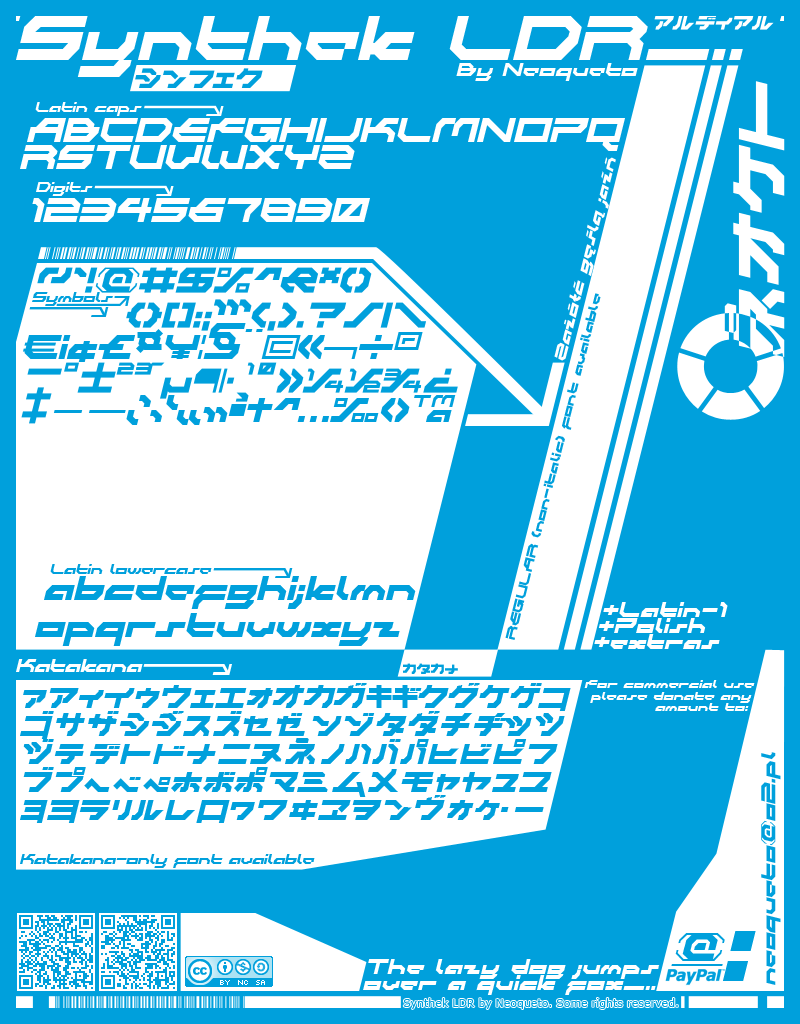
Free for non-commercial use. For commercial license please donate any amount to neoqueto@o2.pl (PayPal), literally ANYTHING will be appreciated and will permit you to use it in order to generate profits. The button is on the right, come on, make use of it! Futuristic, fresh and legible - who would ask for more? Initially created with FontStruct (http://fontstruct.com). Three different font files contain Latin-1, katakana, Polish alphabet and some more. Enjoy. |